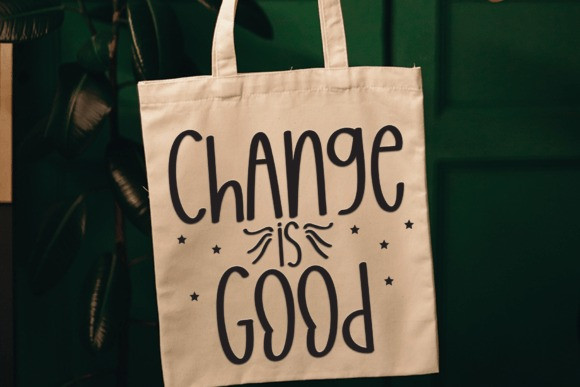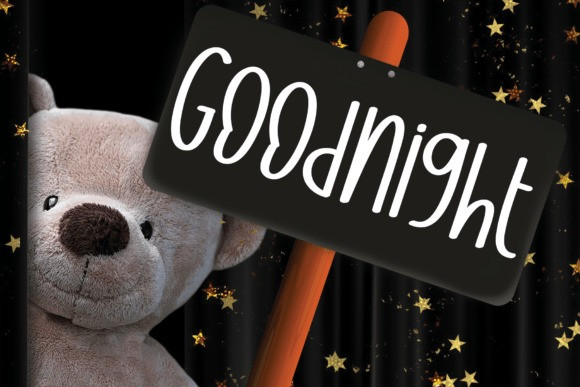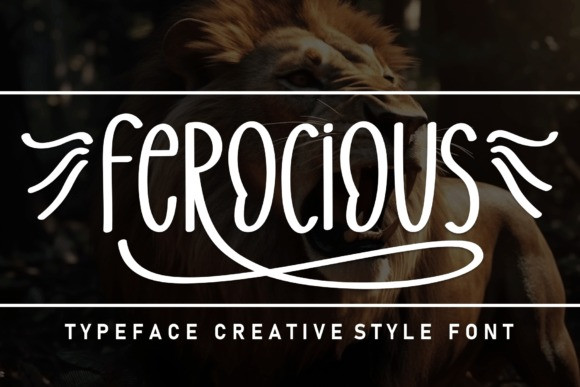
Ferocious Font
Ferocious Font, a bold and commanding typeface that unleashes the power and intensity of your designs. With its sharp edges and strong letterforms, this font demands attention and makes a fearless statement. Perfect for impactful headlines, action-packed designs, and powerful branding, Ferocious Font exudes strength and determination. Unleash your creativity and let Ferocious Font leave a lasting impression.